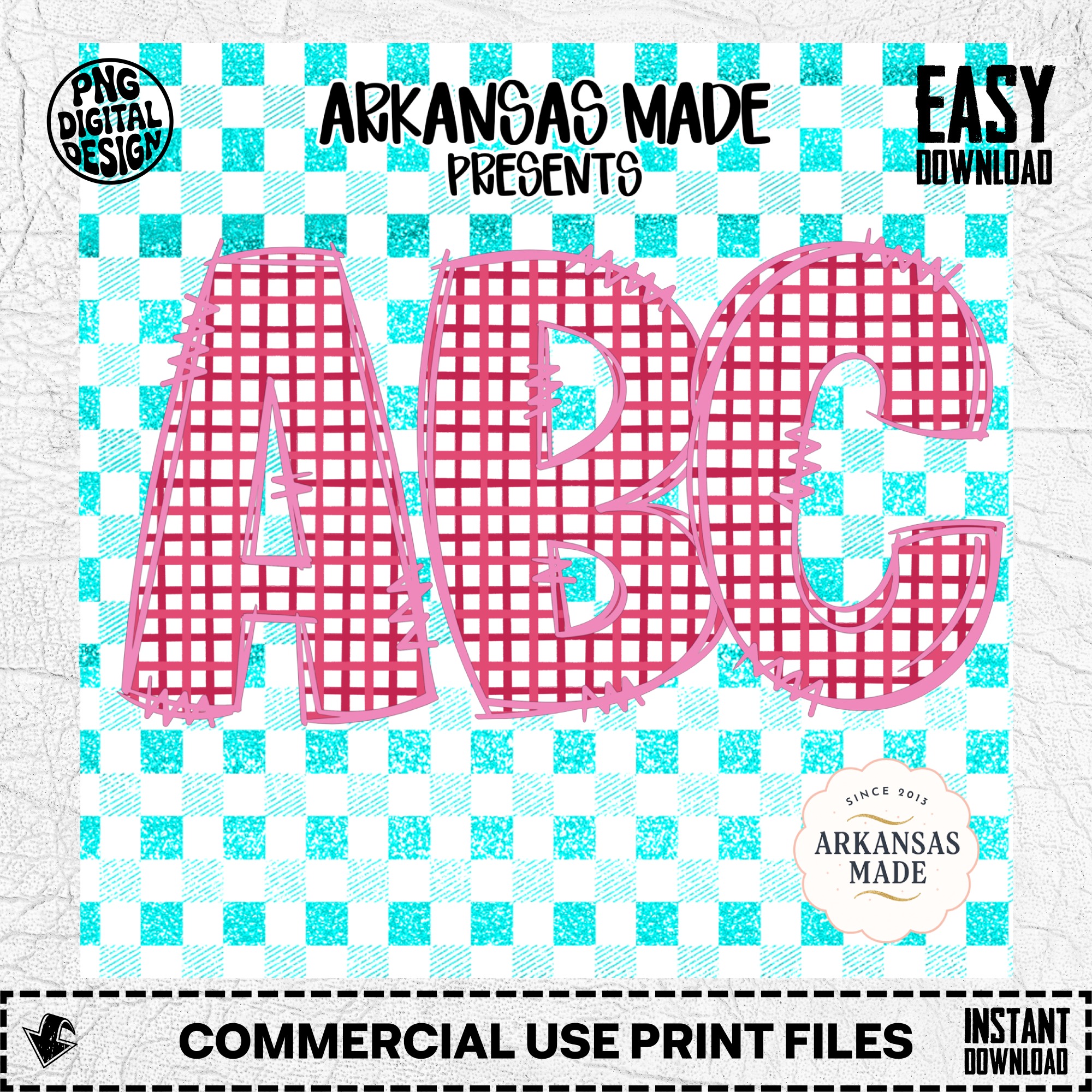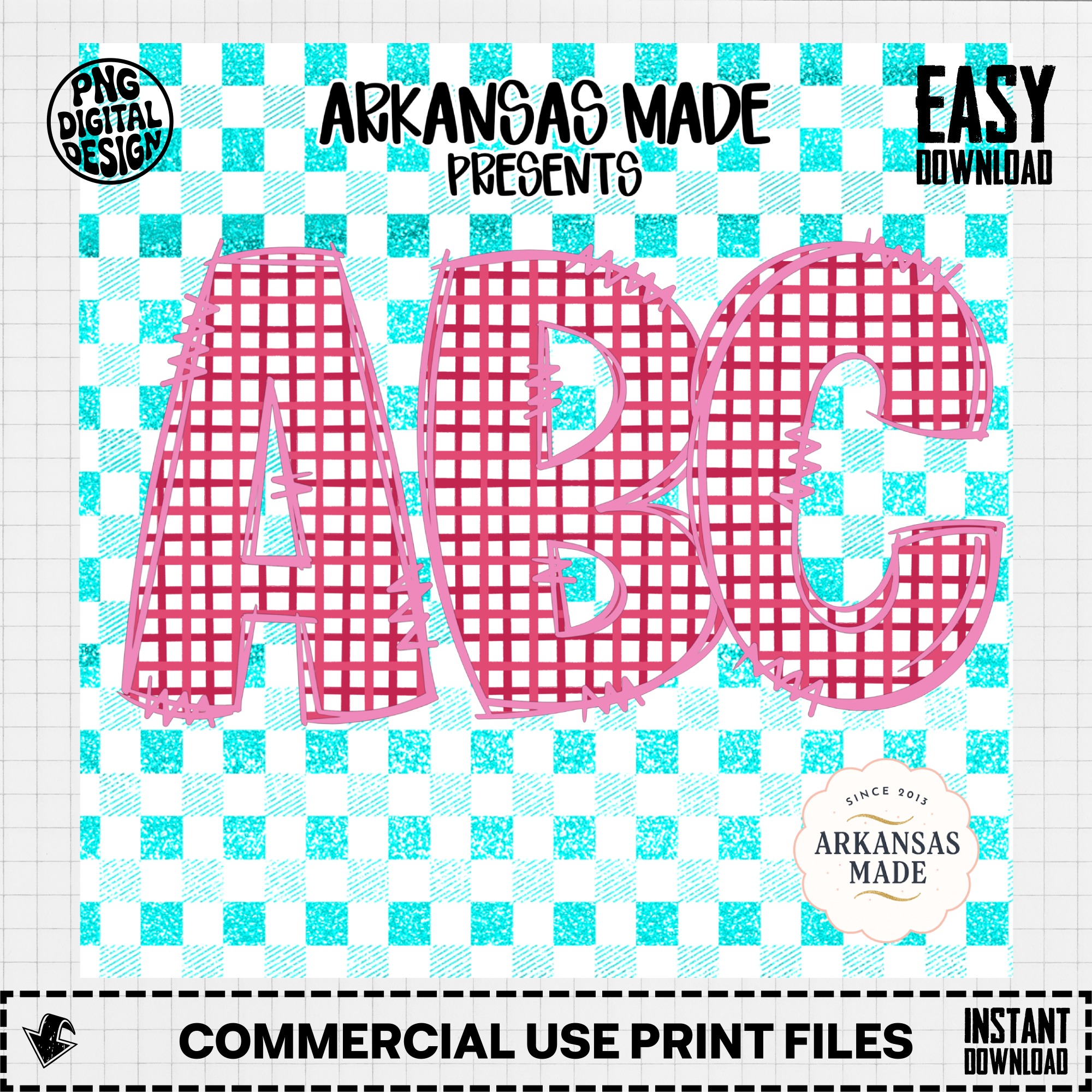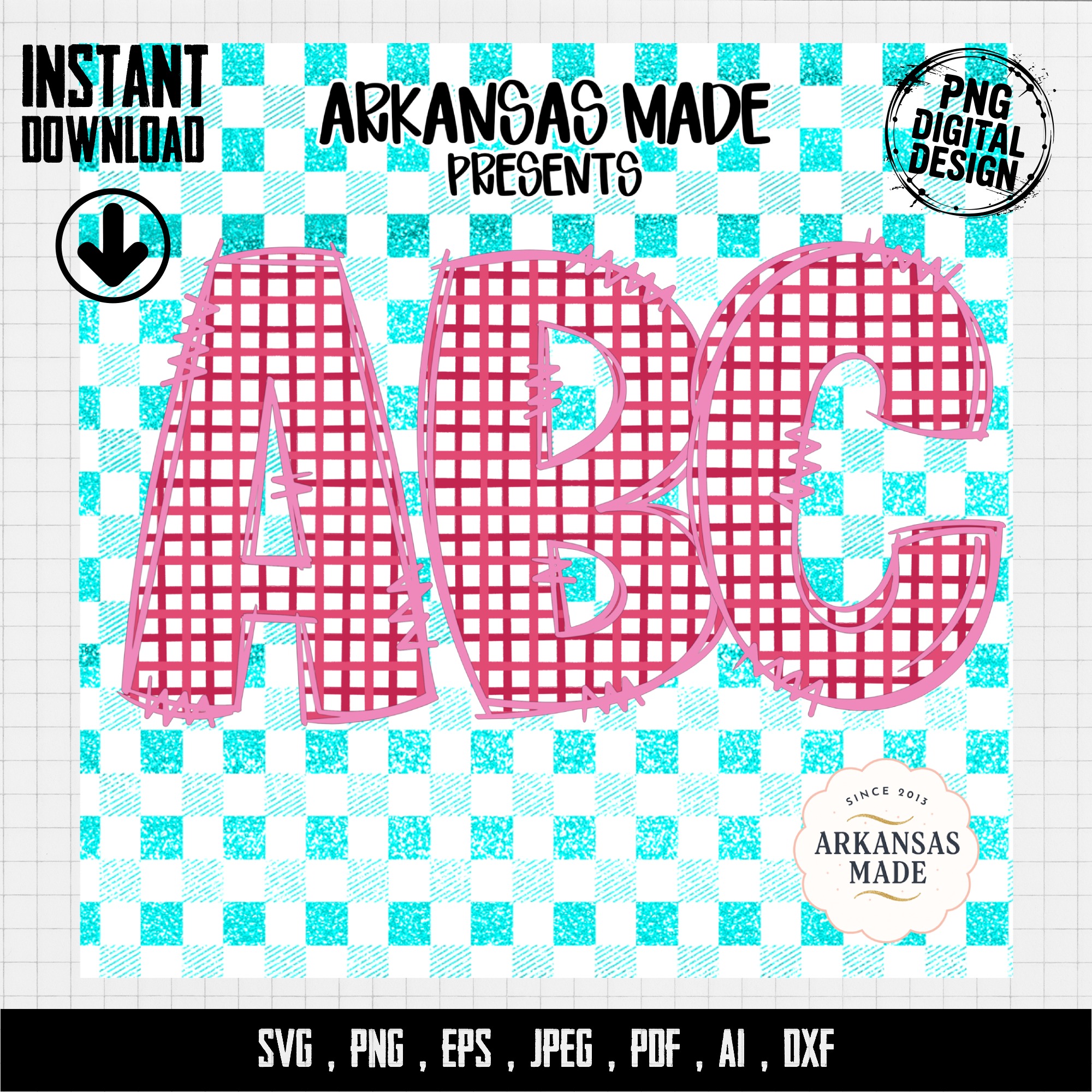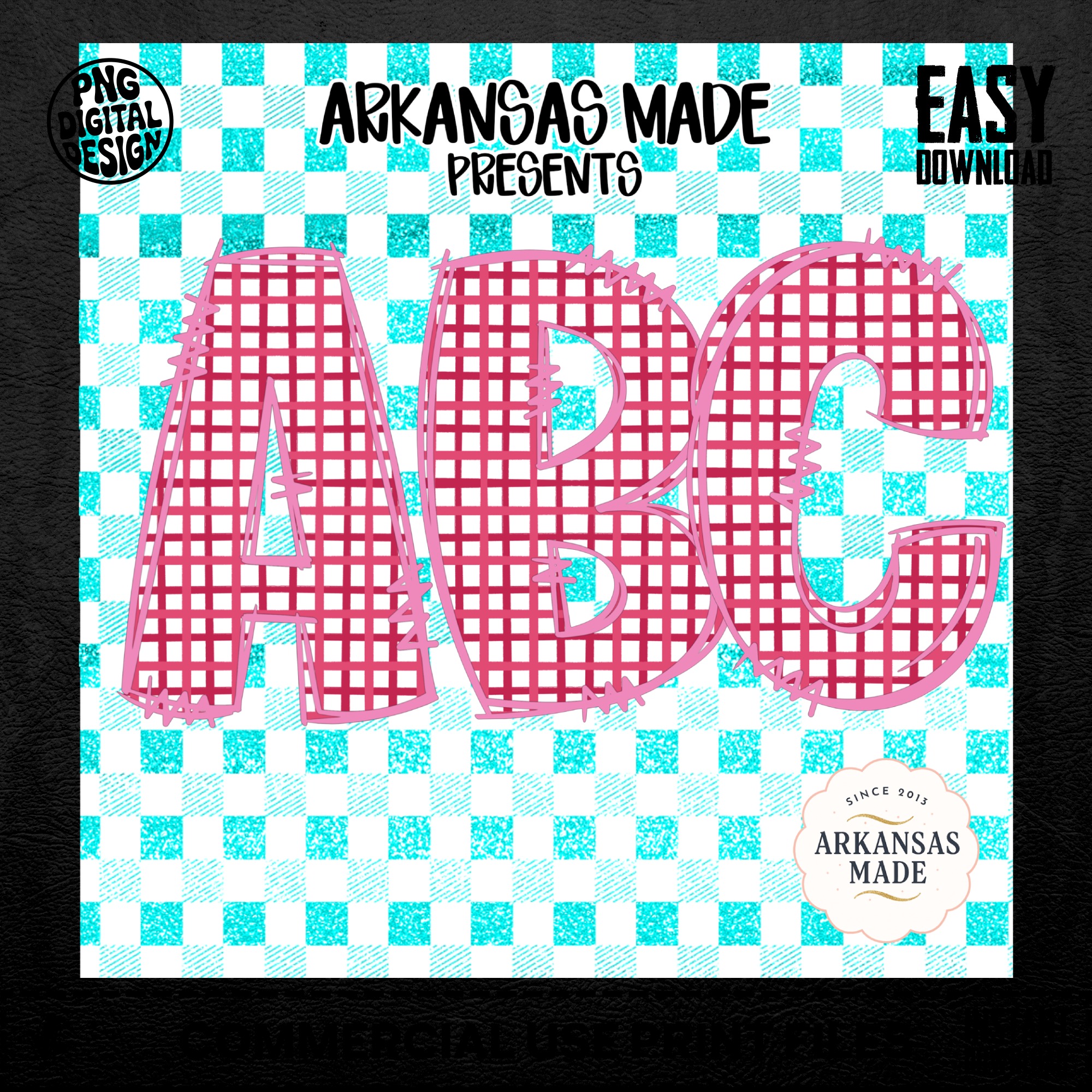
Elevate your crafting projects with this vibrant Full A-Z Alphabet Digital Download. This versatile collection features charming pink plaid letters set against a dazzling teal glitter and white checkerboard background, perfect for adding a touch of rustic sparkle to any design. Ideal for a wide range of creative applications, this set delivers instant charm and personality.
* Full A-Z alphabet included.